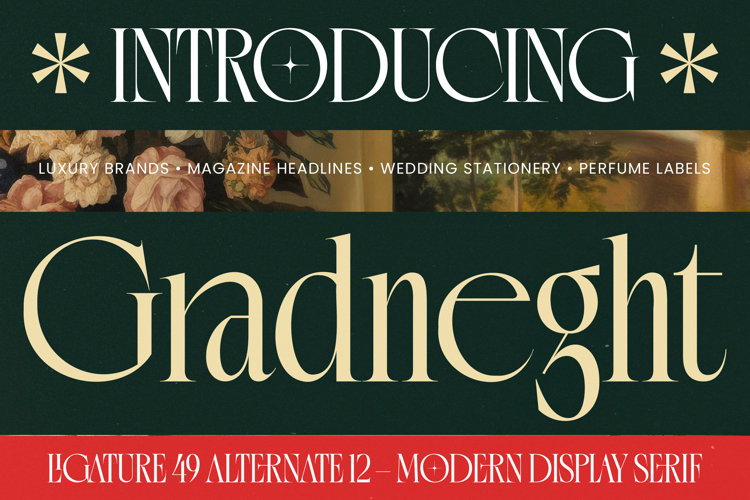
Gradneght - Modern Display Serif
Elevate your creative projects to a new standard of elegance with Gradneght - Modern Display Serif. This typeface embodies a sophisticated aesthetic, characterized by its high-contrast strokes and refined serifs that command immediate attention. Designed for creators who demand both modernity and classic charm, Gradneght - Modern Display Serif provides a luxurious visual impact that is both bold and timeless, making it a cornerstone for high-end design.
Global accessibility is at the heart of this typeface's architectural design. With its extensive multilingual support, Gradneght - Modern Display Serif adapts seamlessly across global markets, making it incredibly versatile for international projects. This ensures that your brand message remains consistent and legible regardless of the region, providing a premium typographic solution that resonates with a worldwide audience.
Experience the power of dynamic typography through a rich set of ligatures and stylistic alternates. Gradneght - Modern Display Serif offers an impressive level of customization, allowing you to create unique compositions that stand out in a crowded market. The interplay between its thin hairlines and heavy stems creates a dramatic rhythm that is essential for high-end editorial design and innovative visual storytelling.
This font is the definitive choice for luxury branding and premium packaging where prestige is paramount. Specifically, Gradneght - Modern Display Serif is perfect for magazine headlines, wedding stationery, perfume labels, and high-fashion lookbooks. Whether you are crafting a boutique identity or upscale advertising, this modern display serif ensures your work radiates professional excellence and exclusivity.